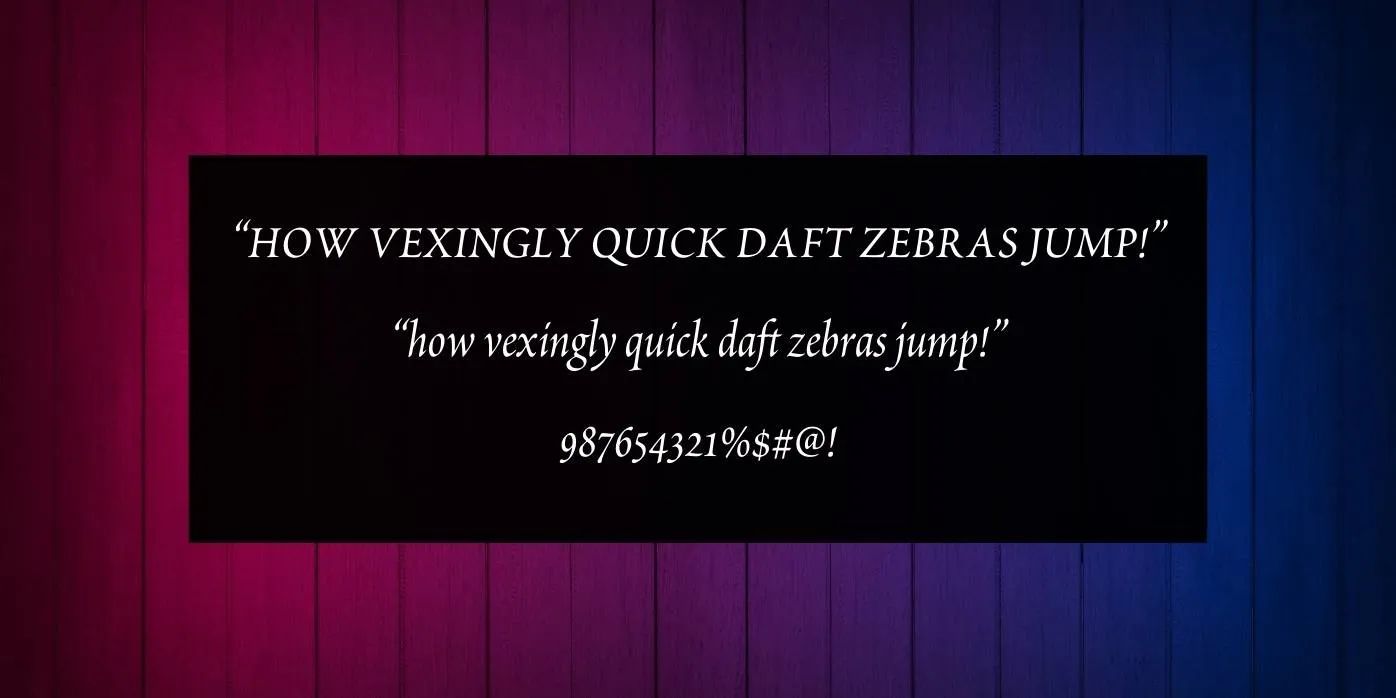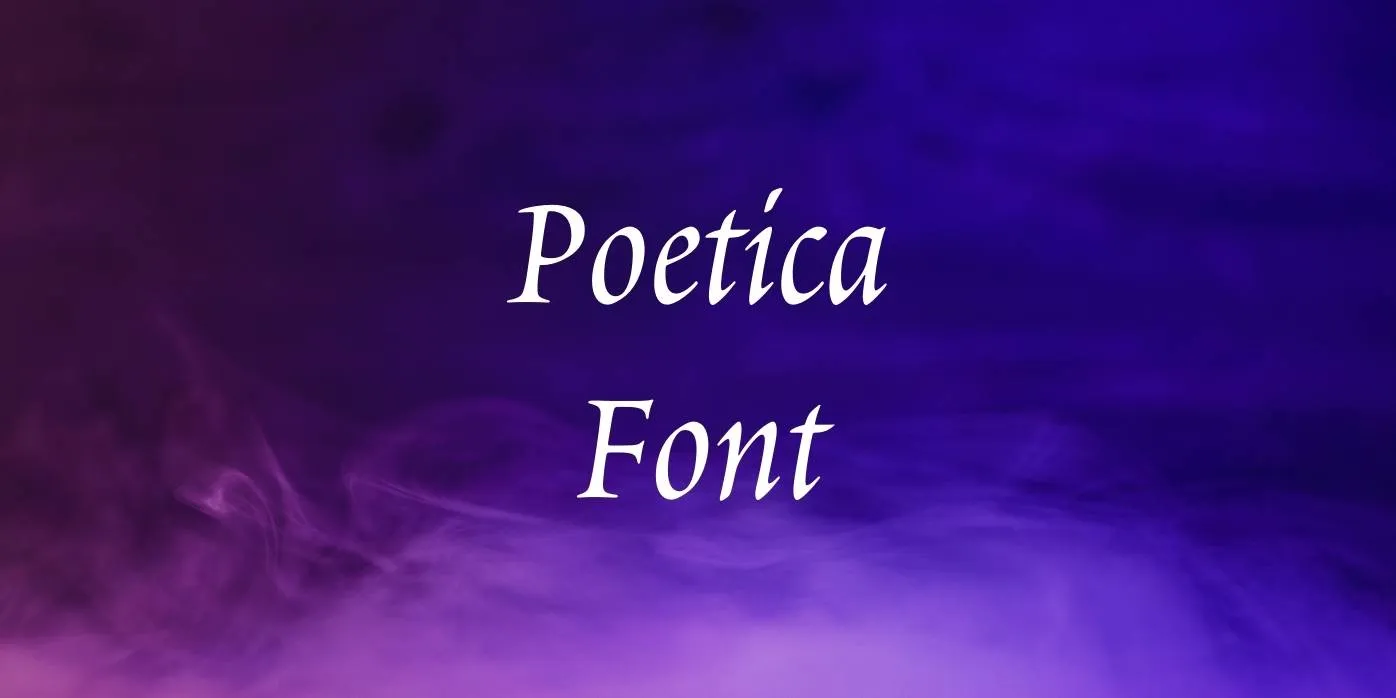
Poetica Font
Poetica Font is an old-style serif typeface designed by Frederic Goudy in 1925. The typeface is named after the Poetica magazine that it was first used. This Font has a classic, old-style design with high contrast between thick and thin strokes. It includes distinctive features like flared descenders on the letters ‘y’ and ‘g’, and a small counter (the enclosed space within a letterform) on the letter ‘a’.